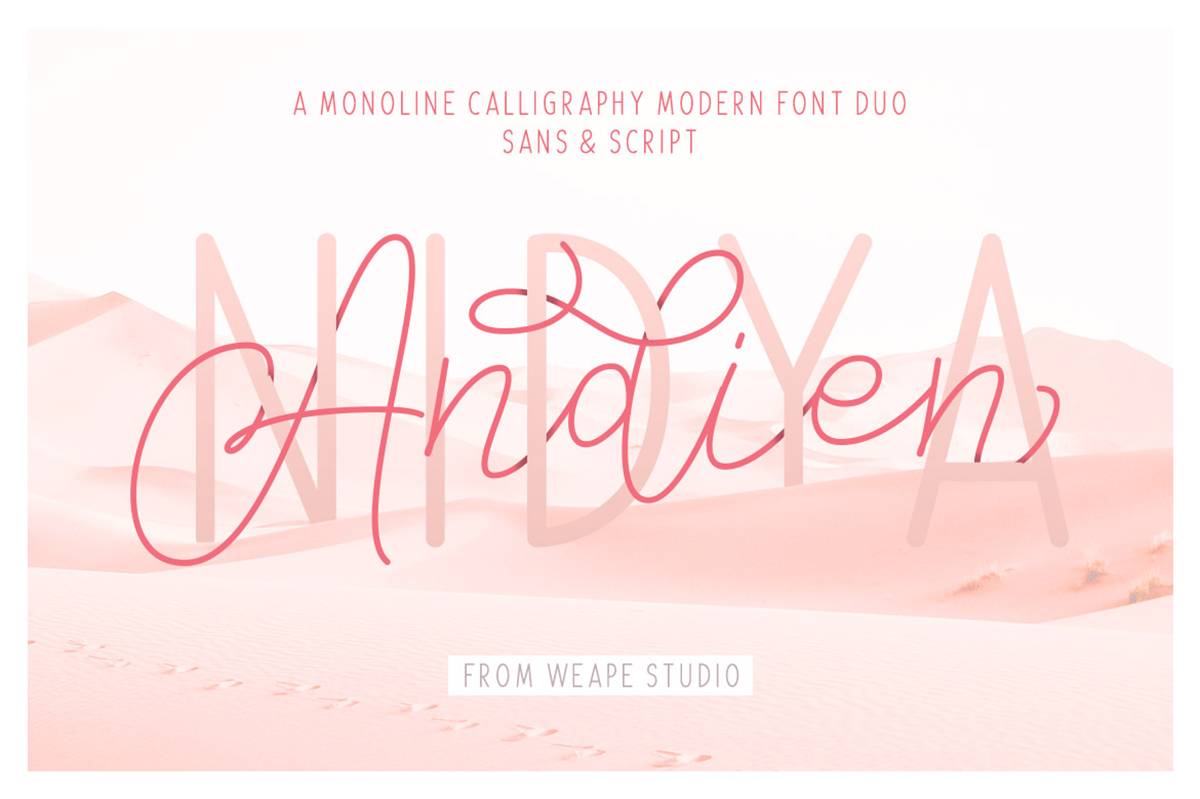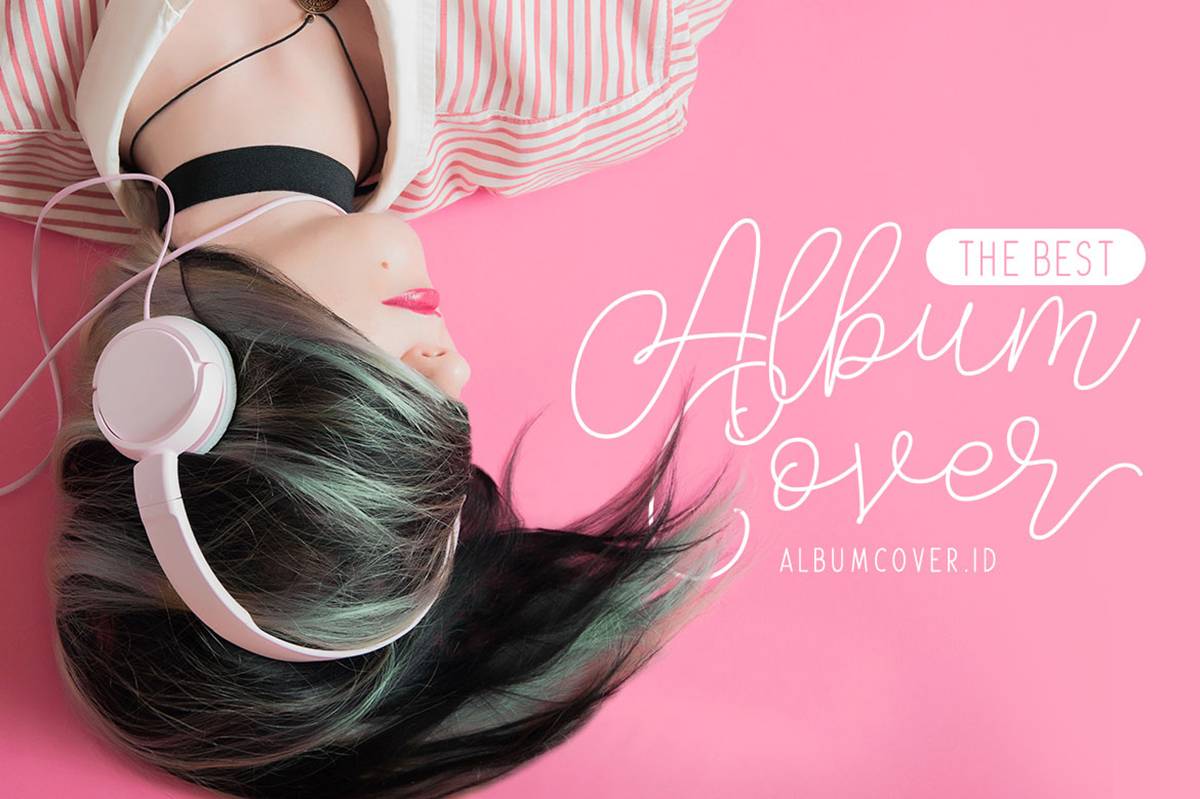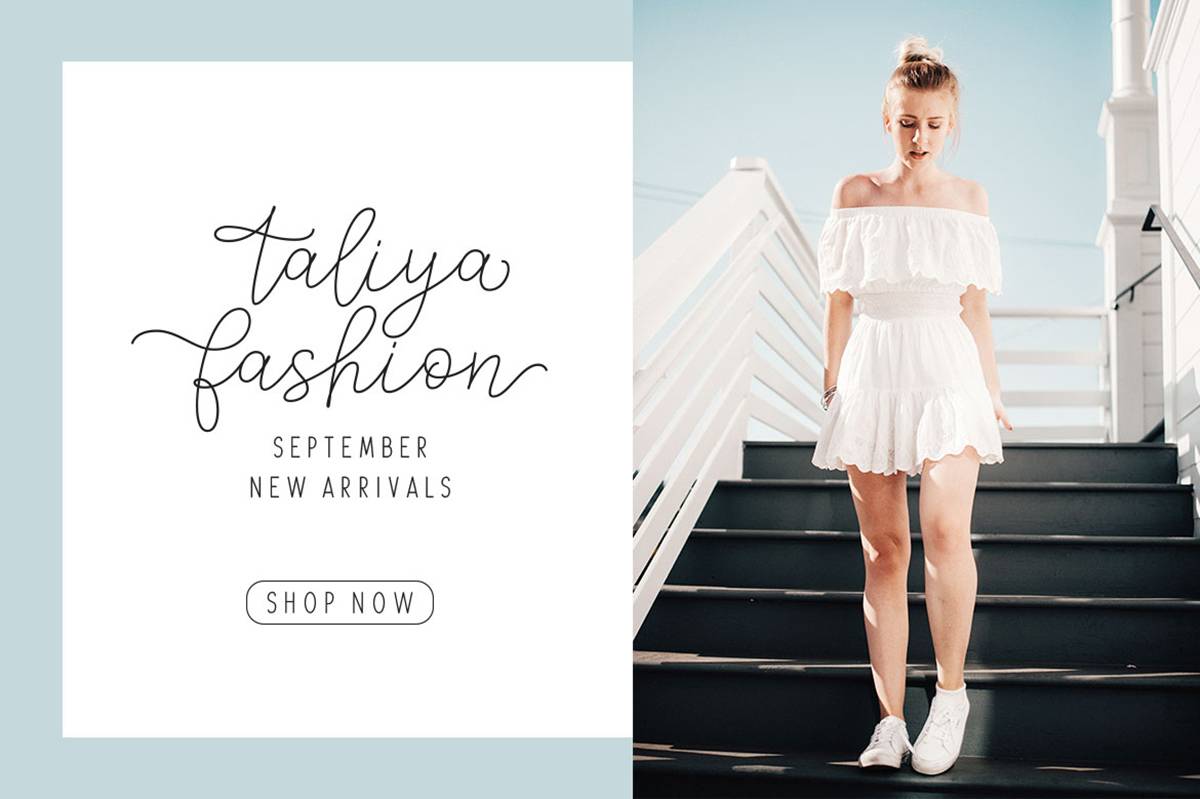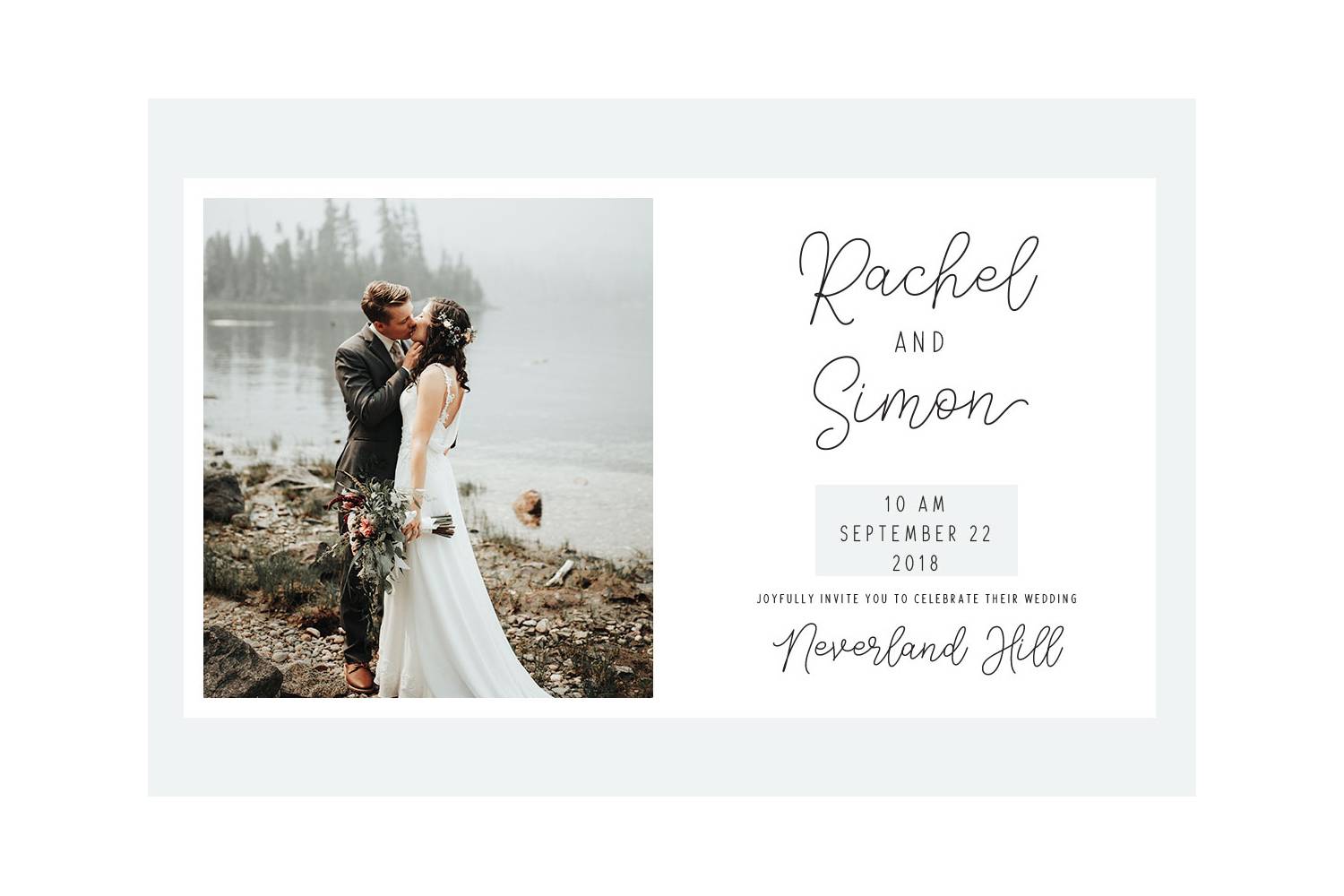
Andien Nidya is a delicate, handwritten script font characterized by its thin, flowing strokes and elegant, airy letterforms. Its graceful style conveys a personal, feminine touch, making it ideal for invitations, branding, and creative projects that seek a sophisticated yet approachable feel. This font works beautifully in settings that require a soft, intimate aesthetic without sacrificing legibility.
| Font family | Andien Nidya Font |
| Release date | 2018-09-04 |
| Designer | Weape Studio |